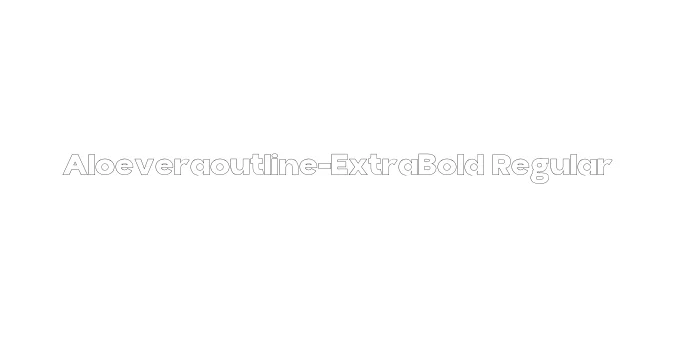
Aloeveraoutline-ExtraBold Regular
| Category | Display / Sans-Serif |
Aloeveraoutline-ExtraBold Regular is a striking display typeface characterized by its bold, architectural structure and clean outline aesthetic. Part of the larger Aloevera typography family, this weight is specifically engineered to provide a high-impact visual experience while maintaining a sense of airy sophistication. Its geometric foundations and balanced proportions make it a standout choice for contemporary designers seeking a font that combines strength with transparency, allowing background elements or textures to show through its hollow centers.
The typeface excels in professional environments where modern branding and bold statements are required. The ExtraBold Outline variant is meticulously crafted to ensure that even at larger scales, the line weight remains consistent and sharp. It serves as an excellent tool for creating dynamic typographic hierarchies, working exceptionally well for editorial layouts, cinematic title sequences, and high-end promotional materials that demand a trendy, forward-thinking look.
Aloeveraoutline-ExtraBold Regular Best Uses
Ideal for creating distinctive logos and modern corporate identities.
Perfect for high-impact website hero sections and magazine titles.
Great for attention-grabbing Instagram quotes and YouTube thumbnails.
Excellent for streetwear prints, t-shirt designs, and fashion labels.
Suited for event posters, artistic flyers, and large-scale advertisements.